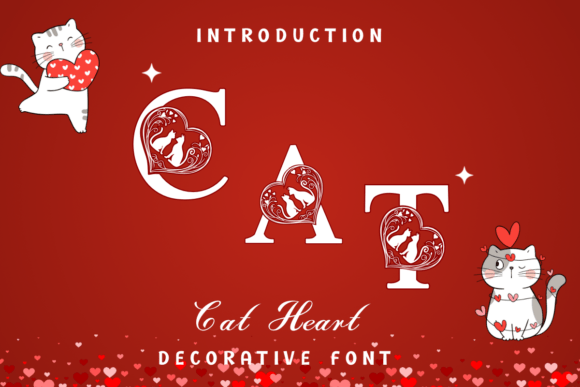
Unleash Your Creativity with Cat Heart Font
Have you ever been working on a design project, and suddenly, you just can’t seem to find the right font? I recall a recent experience where I was tasked with creating a Valentine’s Day-themed invitation for a client. The project required a font that was not only romantic but also playful and eye-catching. That’s when I stumbled upon the charming Cat Heart Font. In this article, we’ll dive into the world of Cat Heart Font, exploring its unique features, practical applications, and some helpful tips and tricks.
A Personal Design Moment: Finding the Purr-fect Font
I was brainstorming ideas for a Valentine’s Day invitation when I realized that I needed a font that would capture the essence of love and playfulness. As I scrolled through my font library, I came across Cat Heart Font, and it instantly caught my attention. The bold, clean letterforms with intricate, swirling vector art centered around an adorable cat and heart motif were exactly what I needed. I knew right then and there that Cat Heart Font was the perfect fit for my project.
An Honest Review: What I Love and Some Quirks
- ✨ Unique and eye-catching design with intricate details
- ✅ Perfect for Valentine’s Day, pet-related, or romantic-themed projects
- 💕 Whimsical and playful feel that adds a touch of personality to any design
- 🎉 Highly versatile and can be used for various creative projects, from invitations to logos
Some Quirks:
- 🤔 Limited use for formal or professional projects due to its decorative nature
- ⚠️ May require some adjustments for optimal use in certain design software
The Designer Inspiration Behind Cat Heart Font
Cat Heart Font was created with the intention of capturing the playful and romantic spirit of Valentine’s Day. The designer, inspired by their own love for felines and fantasy, aimed to create a font that would bring a touch of whimsy and charm to any design. The result is a unique and eye-catching typeface that is sure to delight.
Q: What type of projects is Cat Heart Font best suited for?
A: Cat Heart Font is perfect for Valentine’s Day crafts, themed birthday party invitations, pet-related merchandise, adorable logo design, and quirky apparel.
Q: Is Cat Heart Font available in different weights or styles?
A: Currently, Cat Heart Font is available in a single weight. However, the font’s design allows for some flexibility in terms of size and color to achieve different effects.
With Cat Heart Font, you can infuse your creative work with a playful and heartfelt charm. Whether you’re a designer, crafter, or hobbyist, this delightful font is sure to bring a smile to your face and a touch of magic to your projects.